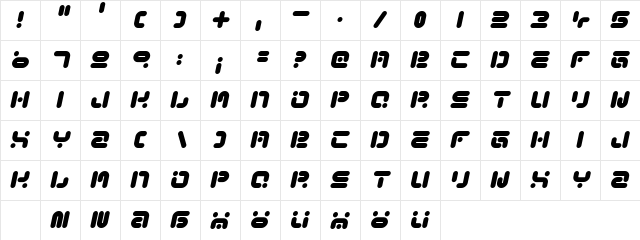
Funky Knut Regular
Design Context for Funky Knut Typeface
Funky Knut trades formality for fun, with bouncy, characterful letterforms that bring warmth and energy to any project.
Font Pairing: Pairs well with a rounded or humanist sans for body copy, maintaining the friendly tone without relying on Funky Knut to carry extended reading.
Pro Tip: Use Funky Knut at larger display sizes where its expressive character can land. Pair with a clean, simple sans for body copy to maintain readability.